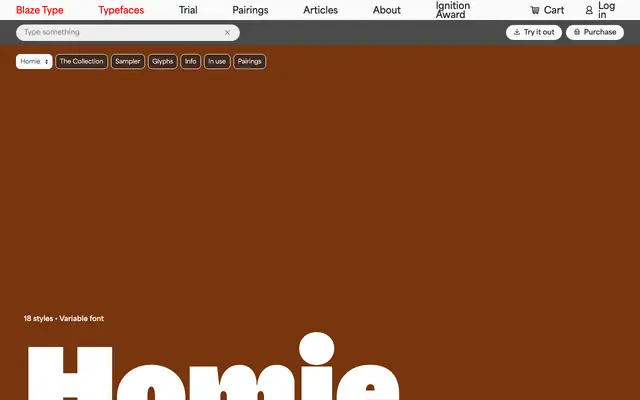
Homie
Blaze Type · Ethan Nakache · 2023
A humanist sans by Ethan Nakache that blends geometric structure into its letterforms, shifting contrast as weights increase from text to display.
Designed by Ethan Nakache and released in 2023, it draws on 20th-century French humanist type while pulling the forms toward geometry. Lighter weights keep contrast low for text legibility; bolder weights lean into higher contrast suited to display work. The family spans 18 styles across nine weights with matching italics, and is also available as a variable font.
Described by the foundry as a humanist sans with geometric influences, drawing from 20th-century French humanist typefaces. The design shifts from legible text proportions at light weights to more geometric, high-contrast forms at display weights.